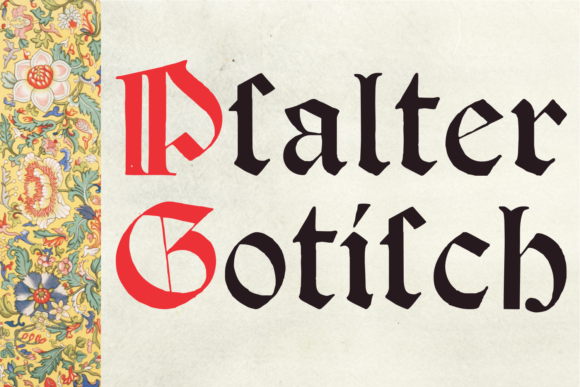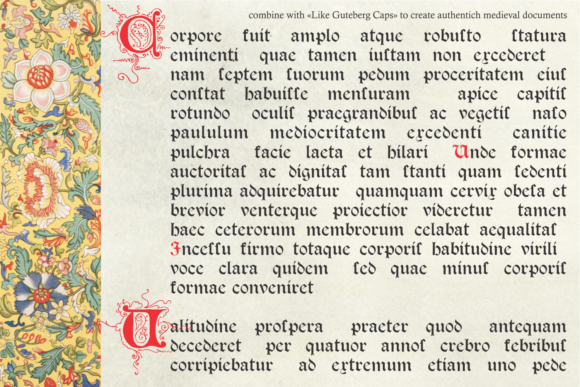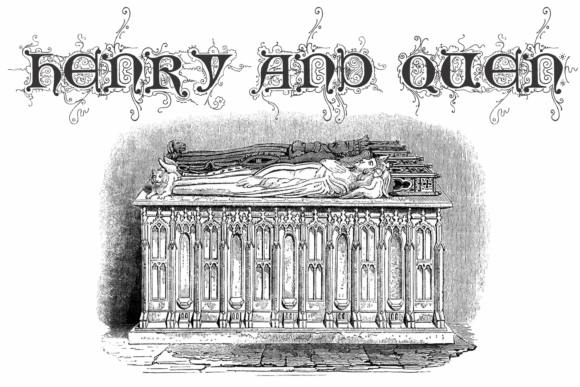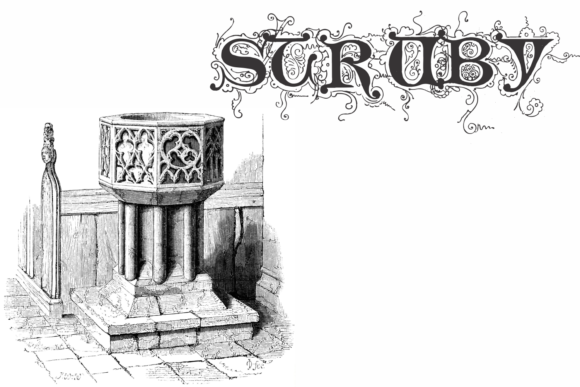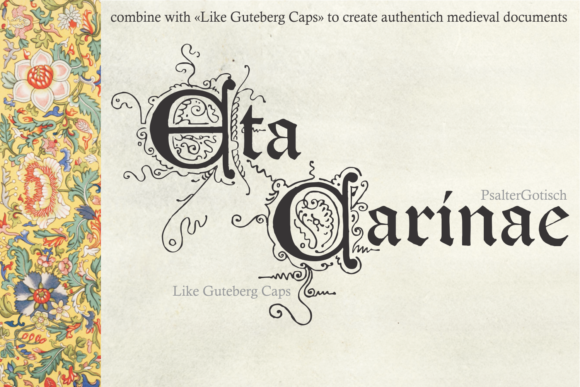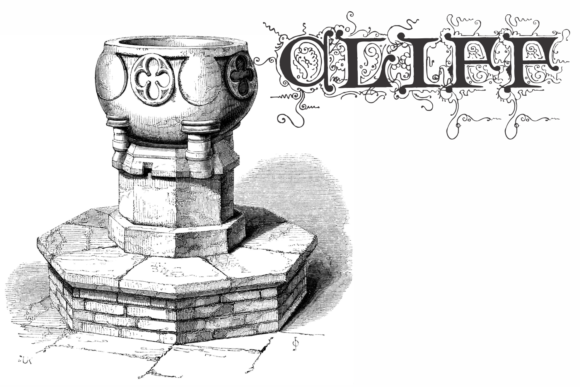
Gutemberg Psalter Gotisch Duo Font: A Medieval Masterpiece for Designers and Crafters
Are you a designer or crafter looking to add a touch of medieval authenticity to your projects? Look no further than the Gutemberg Psalter Gotisch Duo Font. This unique font combination brings together the decorative elegance of Gutemberg, a stunning lombardic font, with the classic blackletter style of Psalter Gotisch. The result is a truly unique and versatile font duo that’s perfect for creating authentic-looking medieval documents, certificates, and other design projects.
The Gutemberg Font: A Decorative Lombardic Masterpiece
The Gutemberg font is a decorative lombardic font that’s inspired by the illuminated manuscripts of the Middle Ages. Its intricate, hand-drawn design features elaborate swashes and flourishes that evoke the ornate lettering of medieval times. With its elegant, cursive style, Gutemberg is perfect for adding a touch of sophistication and refinement to your designs.
Psalter Gotisch: A Classic Blackletter Type
Psalter Gotisch, on the other hand, is a classic blackletter type that’s steeped in tradition. Its bold, dramatic design features sharp, angular lines and a distinctive texture that’s reminiscent of medieval printing. With its strong, authoritative style, Psalter Gotisch is perfect for creating bold, eye-catching designs that demand attention.
Combining Gutemberg and Psalter Gotisch: A Match Made in Medieval Heaven
When combined, Gutemberg and Psalter Gotisch create a truly unbeatable font duo. The elegant, cursive style of Gutemberg pairs perfectly with the bold, dramatic design of Psalter Gotisch, creating a look that’s both authentic and visually striking. Whether you’re designing a medieval-themed certificate, a vintage-style poster, or a decorative illuminated letter, this font duo is sure to impress.
Tips for Using the Gutemberg Psalter Gotisch Duo Font
Here are a few tips for getting the most out of the Gutemberg Psalter Gotisch duo font:
- Use Gutemberg for headings and titles, and Psalter Gotisch for body text. This will create a clear visual hierarchy and add depth and interest to your designs.
- Experiment with different font sizes and styles to create a sense of contrast and visual interest.
- Don’t be afraid to add decorative flourishes and swashes to your designs. These can help to create a more authentic, medieval look.
- Consider using the Gutemberg Psalter Gotisch duo font in combination with other medieval-inspired design elements, such as illuminated letters, borders, and illustrations.
The Gutemberg Psalter Gotisch duo font is a powerful design tool that’s perfect for designers and crafters looking to create authentic, medieval-themed designs. With its elegant, cursive style and bold, dramatic design, this font duo is sure to add a touch of sophistication and refinement to any project. So why wait? Download the Gutemberg Psalter Gotisch duo font today and start creating your own medieval masterpieces!